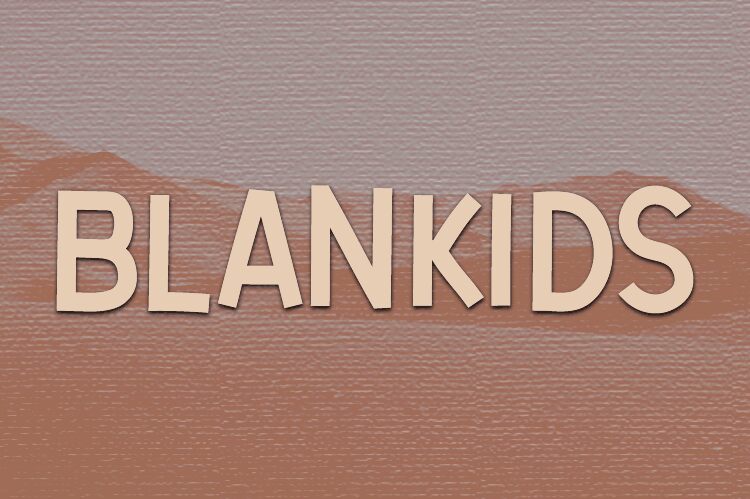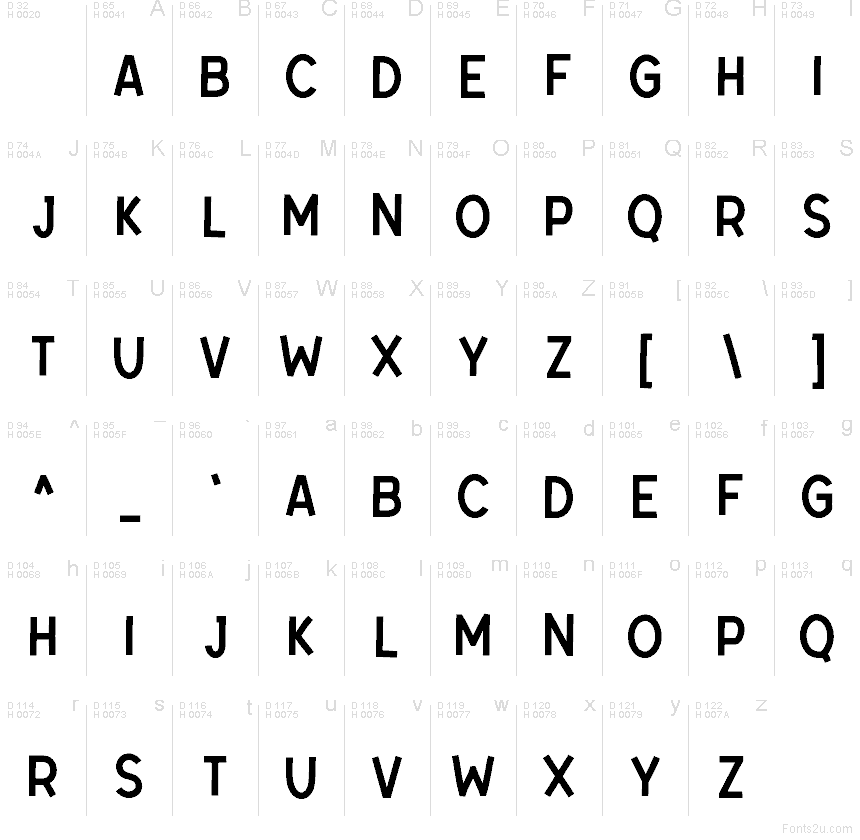
Blankids
Blankids font by Hanna Bie is a free comic display typeface with a chunky, straight-sided energy that feels bold without getting goofy. Its thick, inky strokes and tight, upright spacing give words a strong comic-book punch, while the clean cuts keep everything easy to read at a glance. There’s a playful tension between its boxy structure and casual attitude that makes headlines feel loud, friendly, and a bit mischievous.